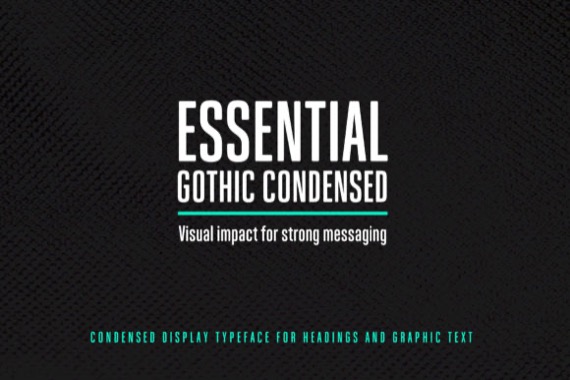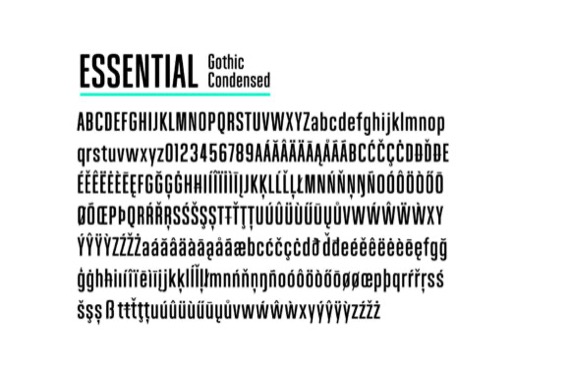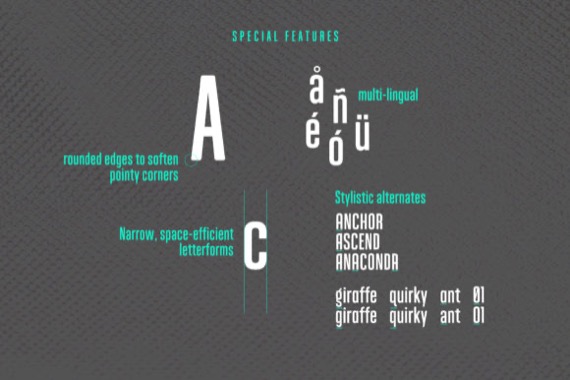
Essential is a modern and classy Gothic Condensed sans serif font that was created and shared by Janinaa. It is a narrow display typeface for headings and graphic text. It is multi-lingual, space efficient, and versatile, with a wide range of possible uses. Definitely a valuable addition to your font arsenal that you can use again and again.
Essential Display Sans Font